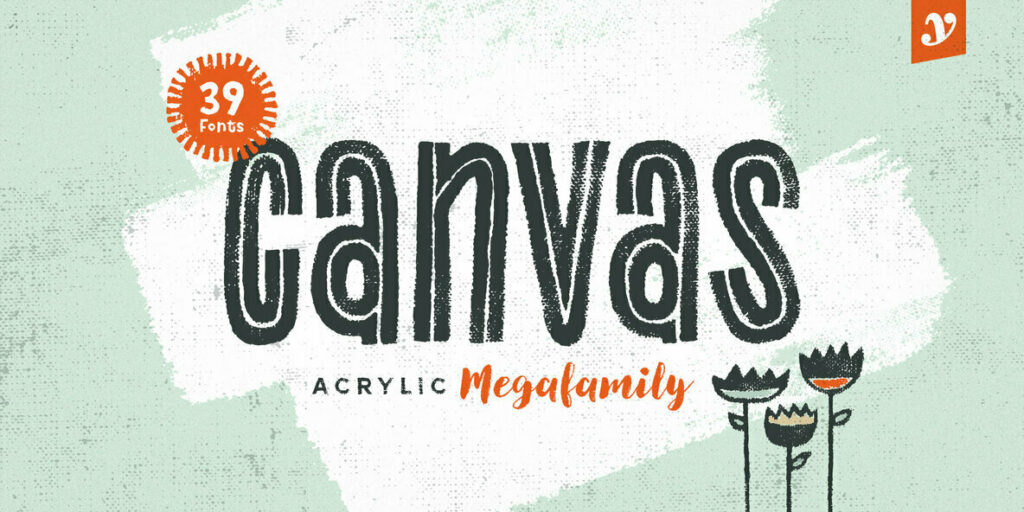
Please note that Canvas Acrylic Megafamily Font must be purchased for commercial use. You are welcome to download and test this font for personal and non-commercial projects at no cost. This immense, hand-painted font collection is perfect for a highly diverse range of artistic and creative design applications, including sophisticated branding, merchandise, packaging, vibrant posters, wedding invitations, holiday graphics, and any project that demands authentic, high-resolution acrylic brush texture and a charming, organic, hand-crafted feel.
The reason Canvas Acrylic Megafamily Font is genuinely exciting is its sheer scale and versatility. It is not just one font; it’s a suite of nine distinct, complementary font families—including Script, Sans, Serif, Inline, and Curly styles—all unified by authentic, hi-res acrylic texture that maintains realism even at large sizes. Six of these families offer unique layering options (like fills and accents), allowing designers to effortlessly create stunning, dimensional, and colored typographic effects directly in their design software.
The Canvas Acrylic Megafamily Font offers an unparalleled number of styles, with 39 fonts in total, including unique families like Canvas Script (with Regular and Heavy versions), Canvas 3D, and specialized sets like Canvas Icons and Canvas Rena’s Flowers (for decorative shapes and ornaments). This gigantic collection ensures you have the perfect hand-crafted look for every possible use case. For the ultimate toolkit in artistic, textured typography, secure your Canvas Acrylic Megafamily Font Free Download today.